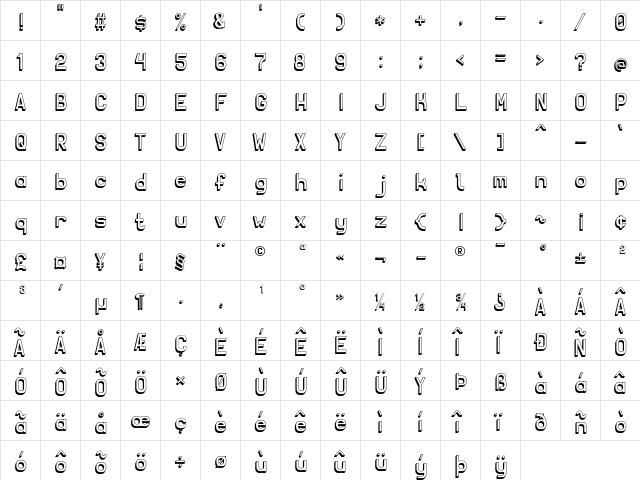
SolidSans 3D
| Style | 3D |
Design Context for SolidSans Typeface
SolidSans is a composed and adaptable typeface that performs quietly and consistently across a wide range of design contexts.